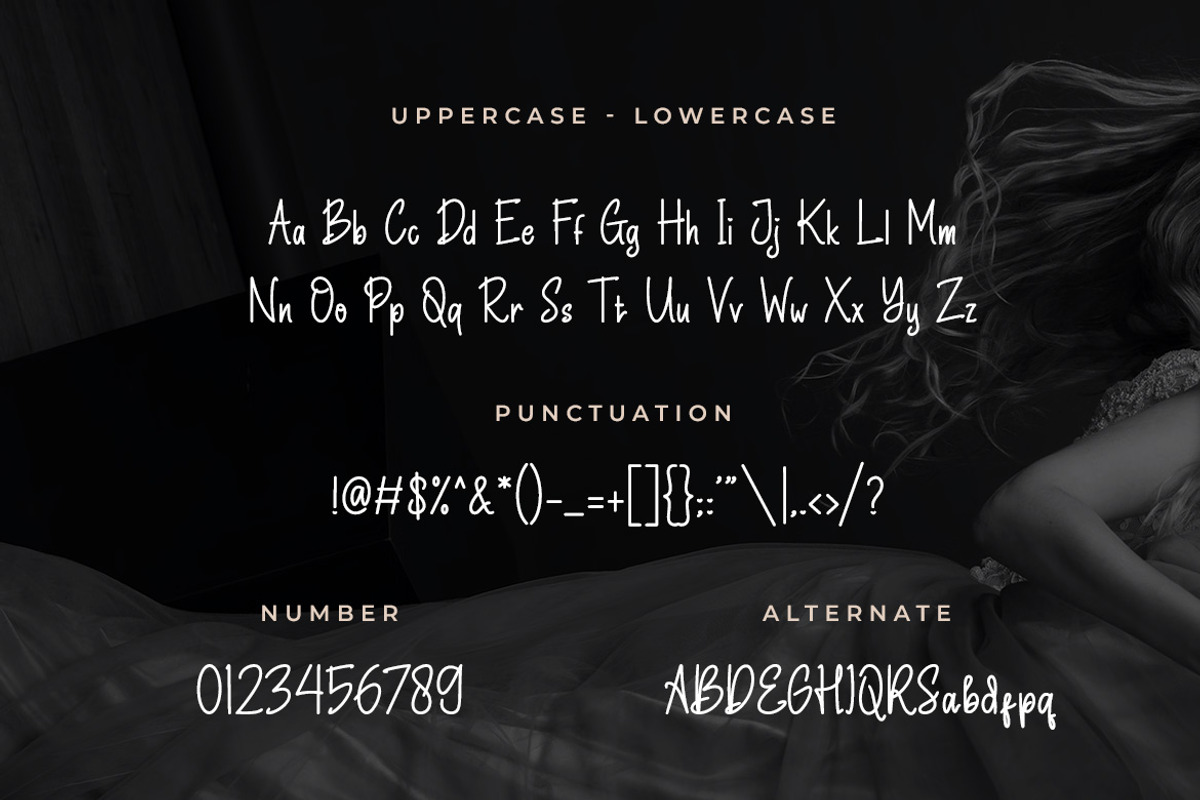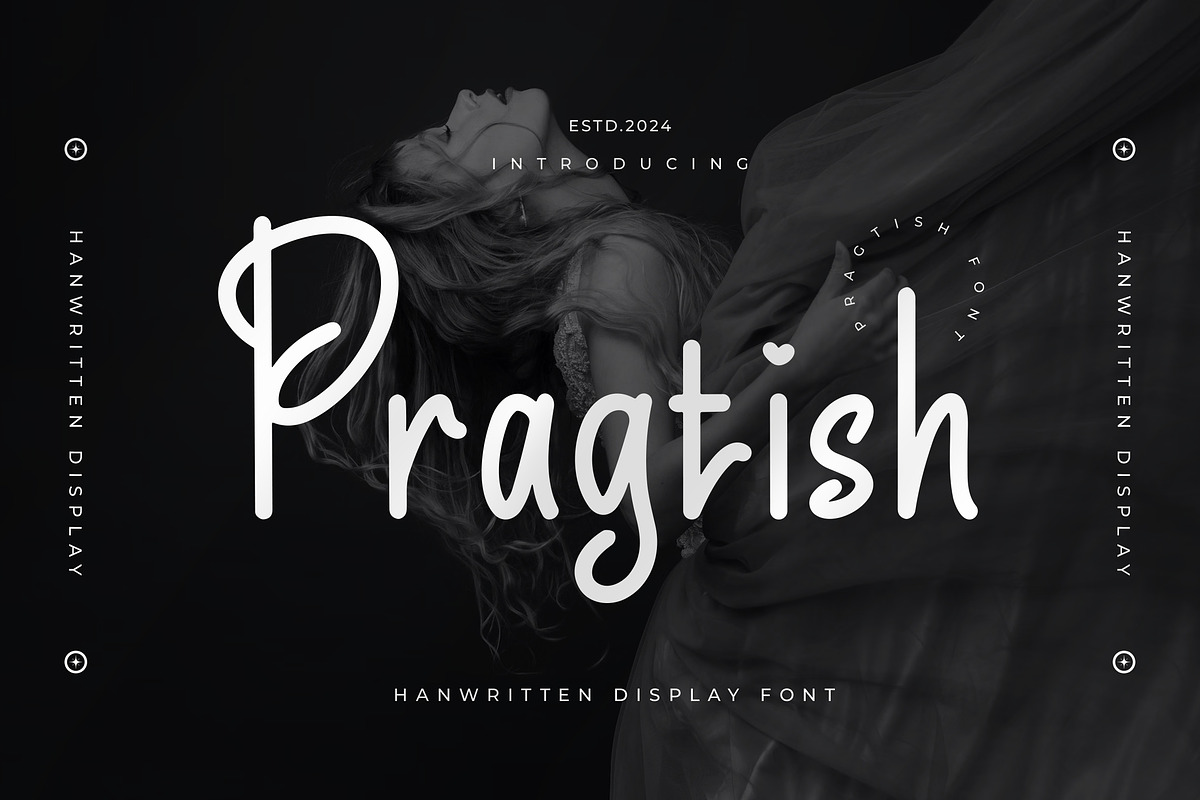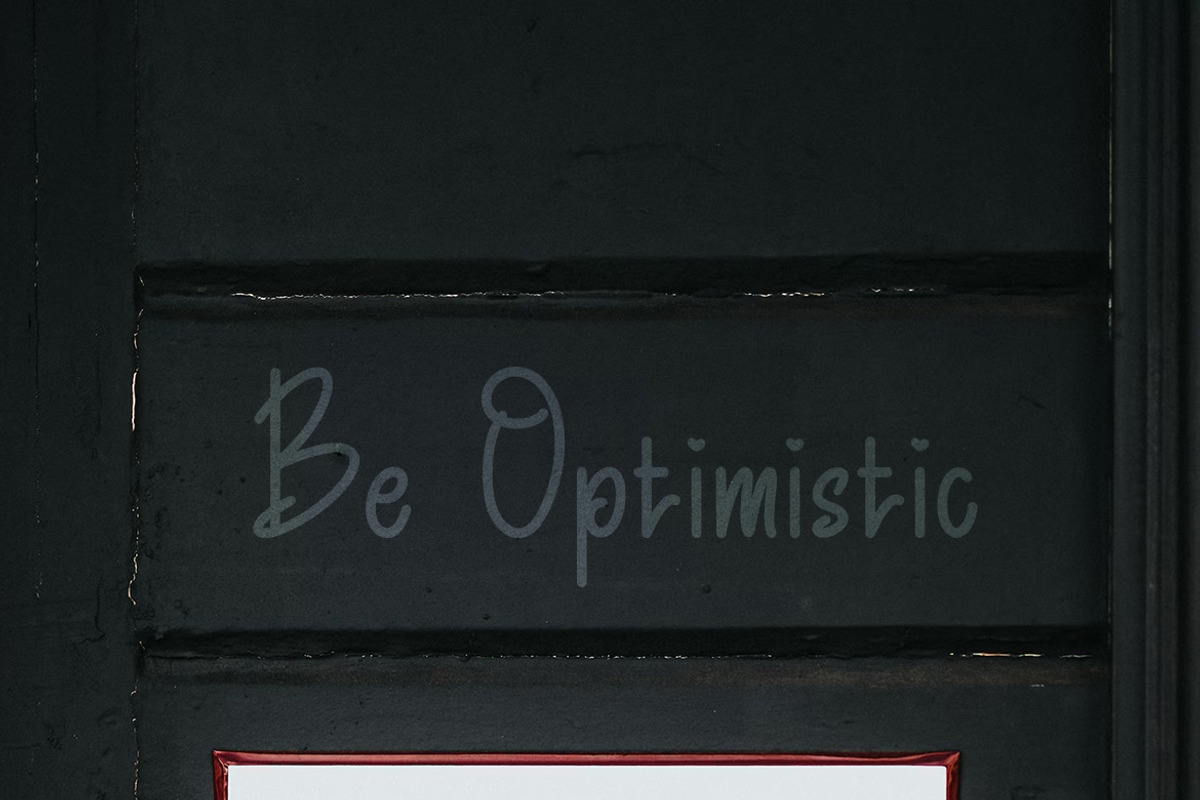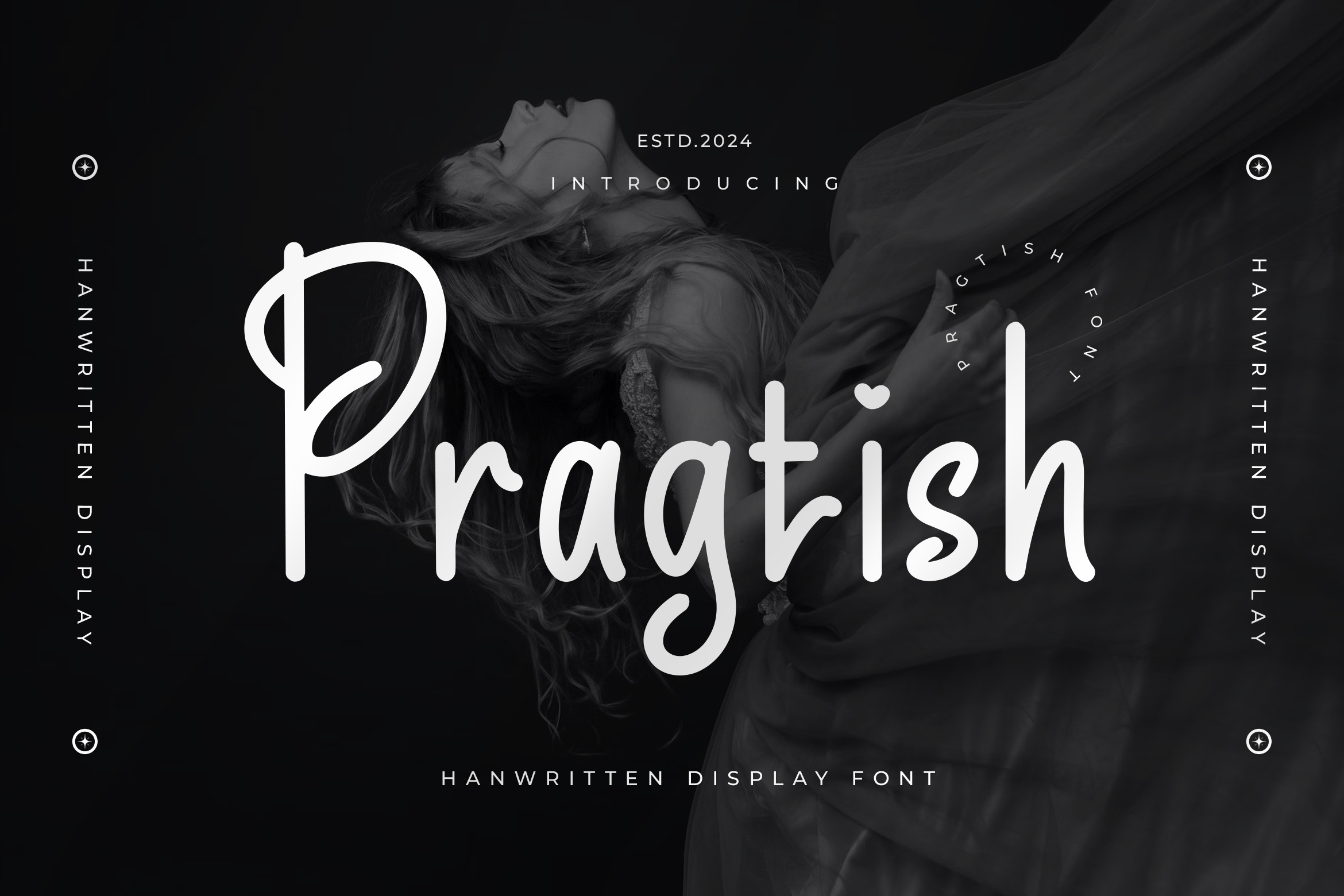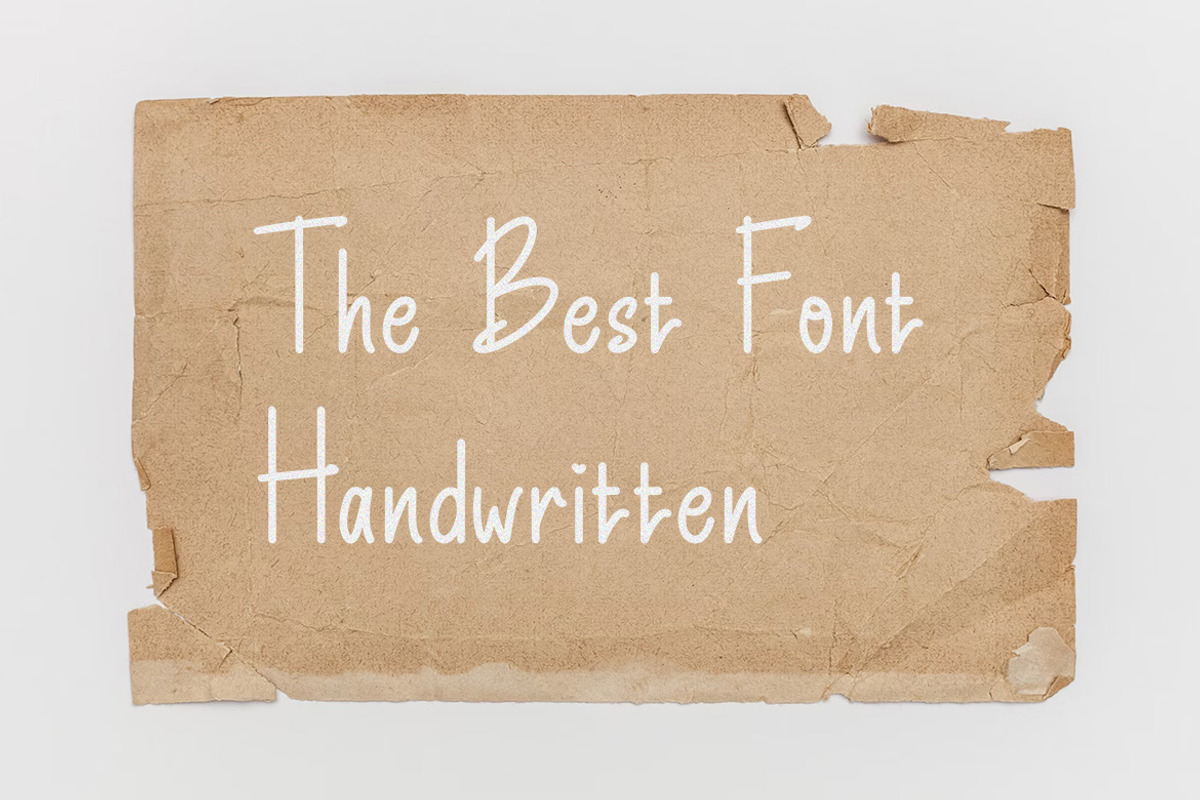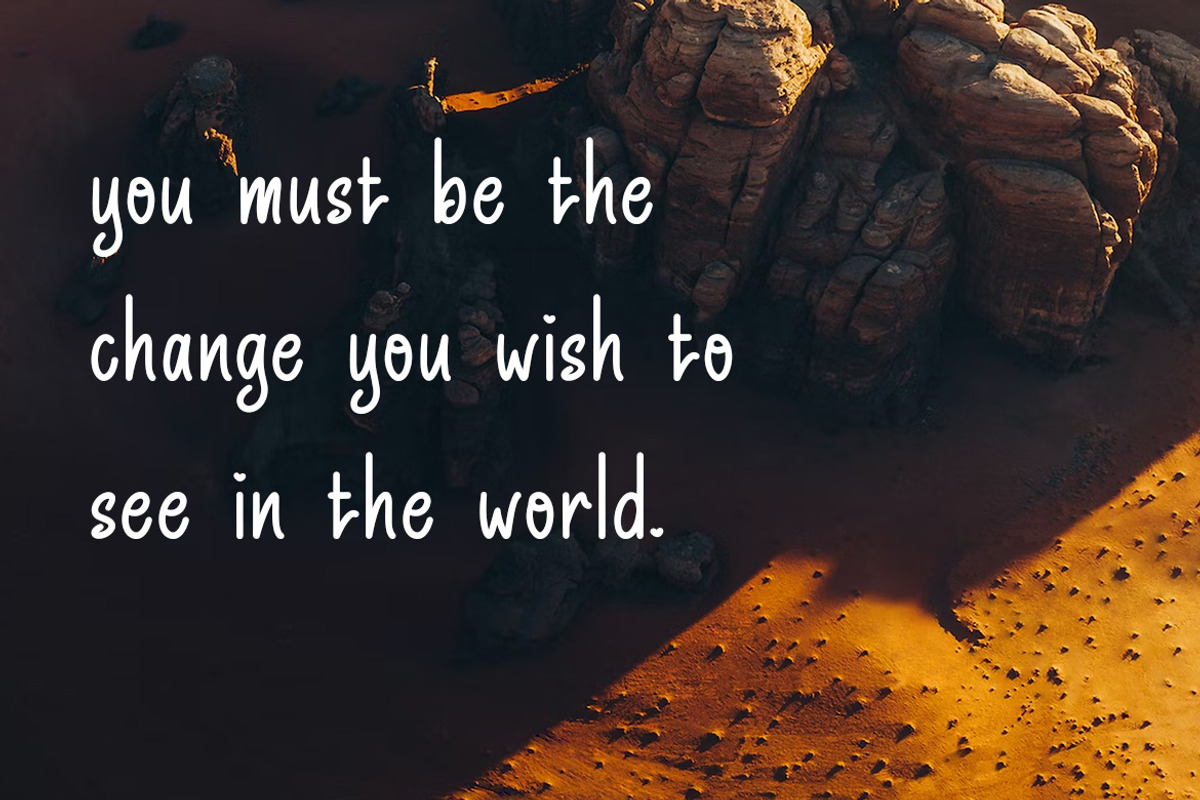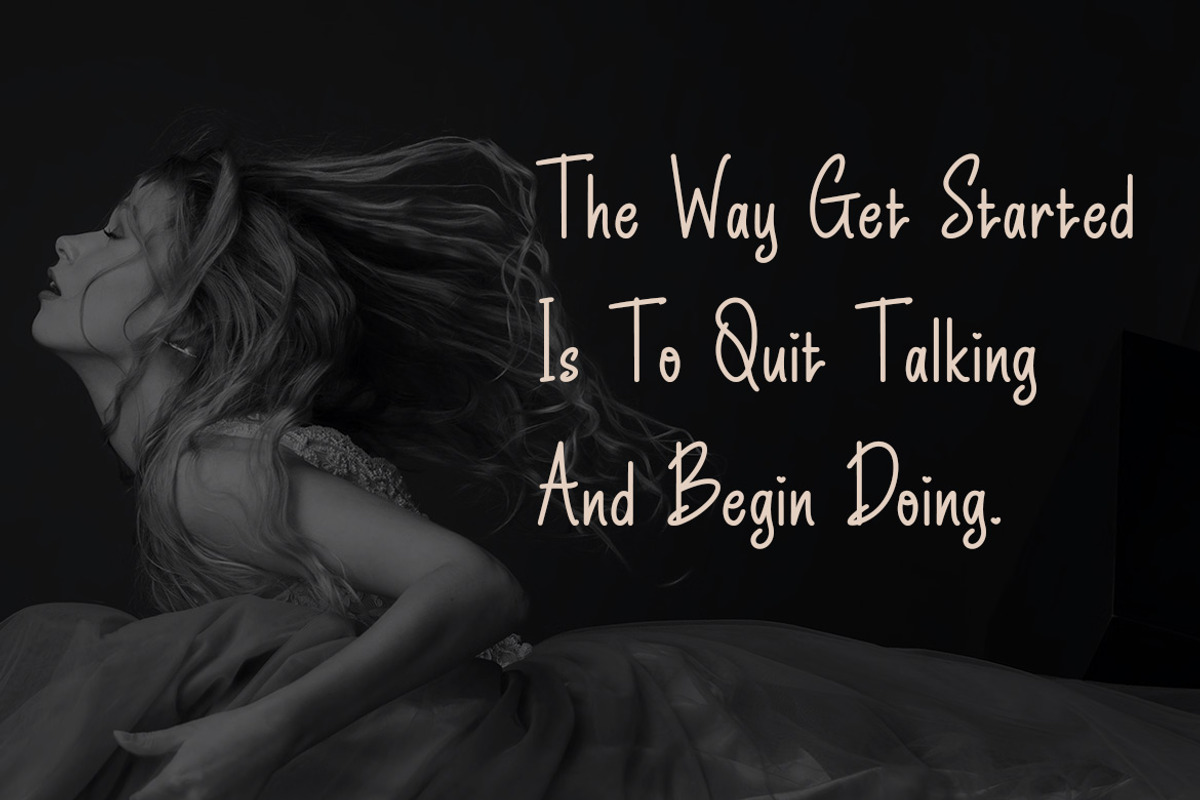
Pragtish - Handwritten Display Font
Pragtish is a unique display typeface perfect for titles, large text, branding, logotypes & graphic design purposes such as posters, pamphlets, and advertisements. This letter font can be a great choice for creating amazing logos, promotional content, and marketing presentations that can bring uniqueness and freshness at its best.
Alternate